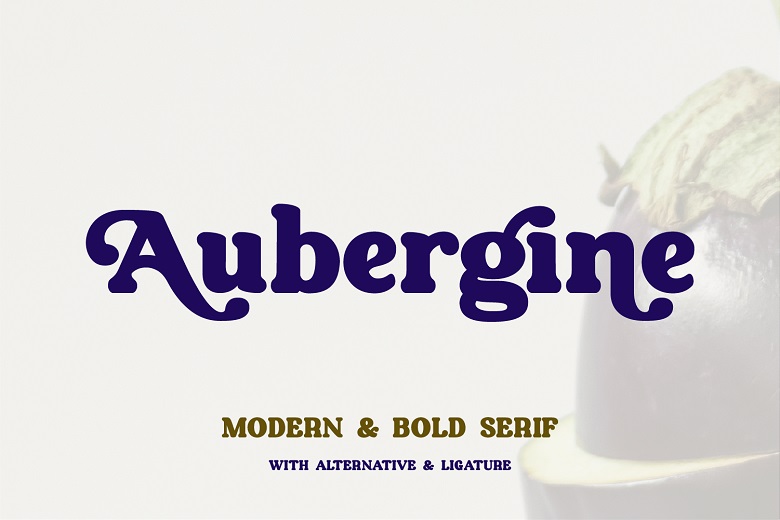
Aubergine Font
Aubergine is a modern, retro and daring typeface of serif that is best suited for the cold climate. In particular, it is PUA encoded which implies that the user will be able to perform usage of all the glyphs and swashes effortlessly. Use this chunky lettered font in your designs, and you will see how your designs will look more alive.
Aubergine Retro Font